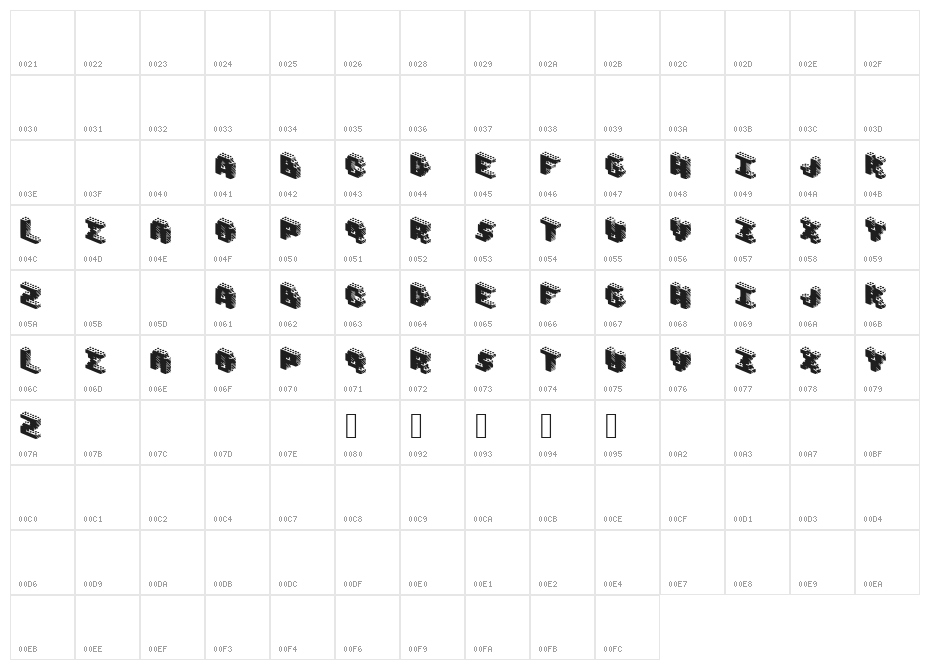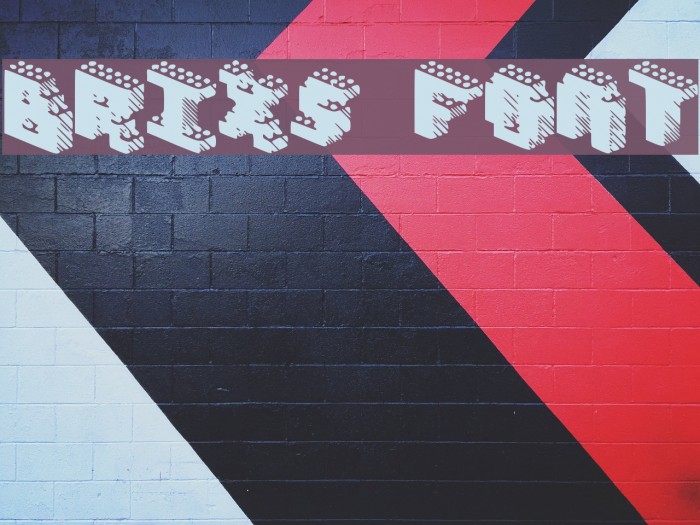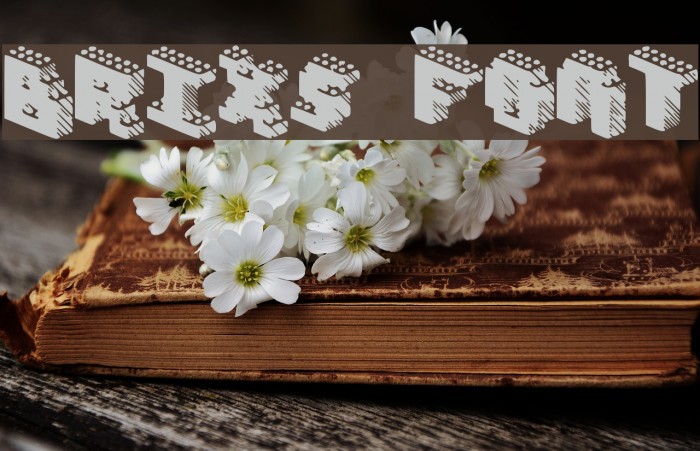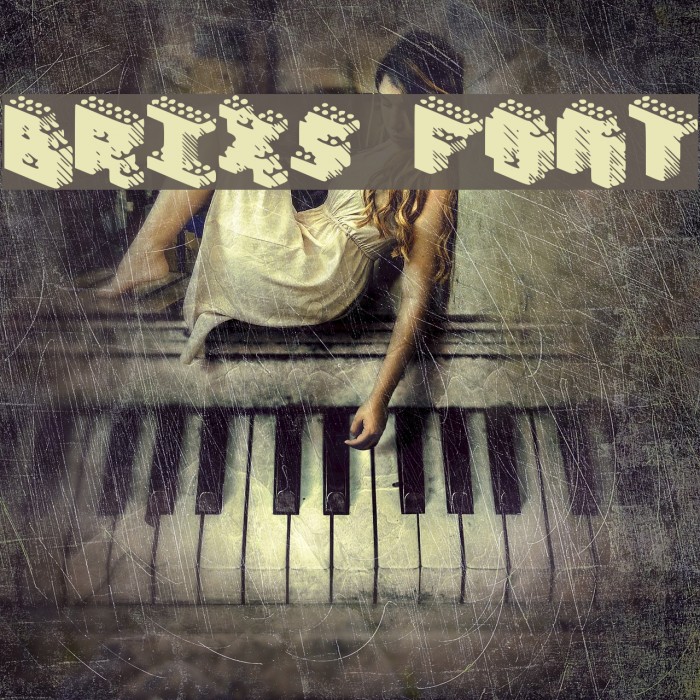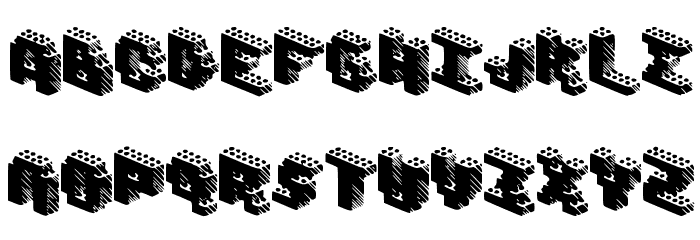
Brixs Font
Brixs Description
This font features a bold, three-dimensional block style with a playful and dynamic appearance. Each character is designed with a pixelated, brick-like texture that gives it a unique, retro video game aesthetic. The letters are constructed with a shadow effect, enhancing the 3D illusion and adding depth. The uppercase letters are prominent and eye-catching, making them suitable for attention-grabbing headlines or titles. The font's geometric structure and pixelated design make it ideal for projects that aim to evoke a sense of nostalgia or a digital theme. Its distinct style is both modern and reminiscent of classic arcade games, making it versatile for various creative applications.
| Overall Style | Retro, Modern, Decorative |
| Proposed Projects | Ideal for video game designs, retro-themed posters, digital art projects, and creative branding. |